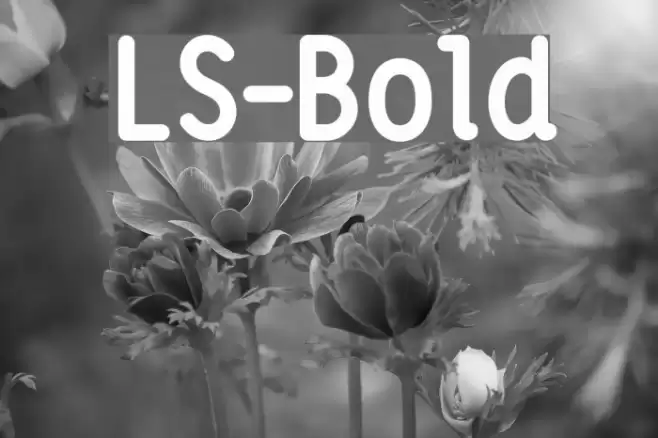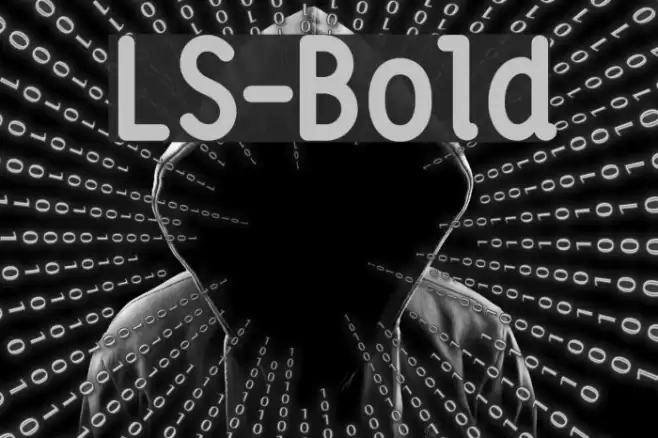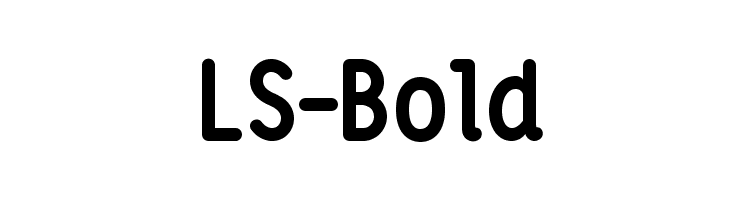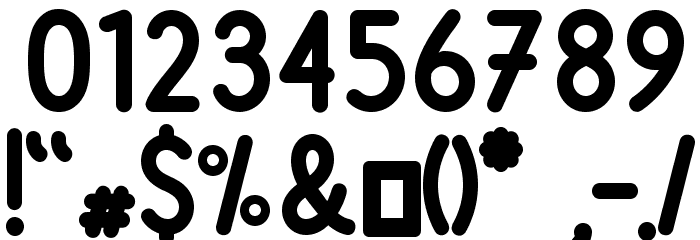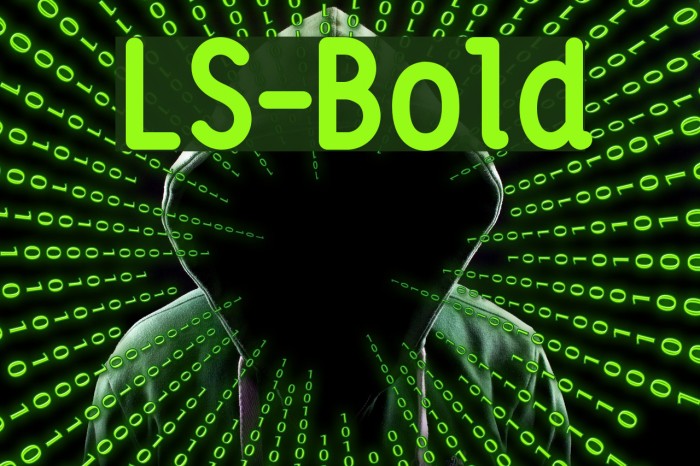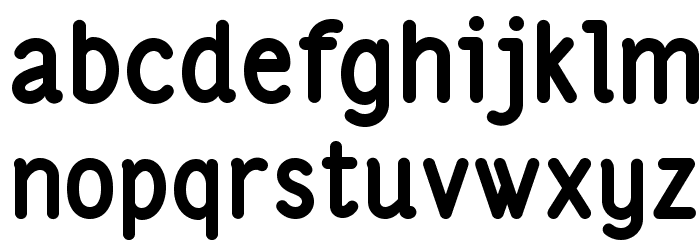
LS-Bold Font
LS-Bold Description
This font features a bold and rounded sans-serif style, characterized by its thick strokes and smooth curves. The letters are evenly spaced, providing a clean and modern appearance. The uppercase and lowercase letters maintain a consistent weight, contributing to a uniform look across the alphabet. Numbers and special characters are designed with the same boldness, ensuring readability and visual impact. The overall design is straightforward yet impactful, making it suitable for a variety of applications where clarity and emphasis are desired.
A bold, rounded sans-serif font with smooth curves and consistent weight.
- Proposed Projects: Ideal for branding, signage, posters, and headlines where a strong, modern presence is needed.
- Category: Sans-Serif
- Use Case: Headlines, Logos, Signage